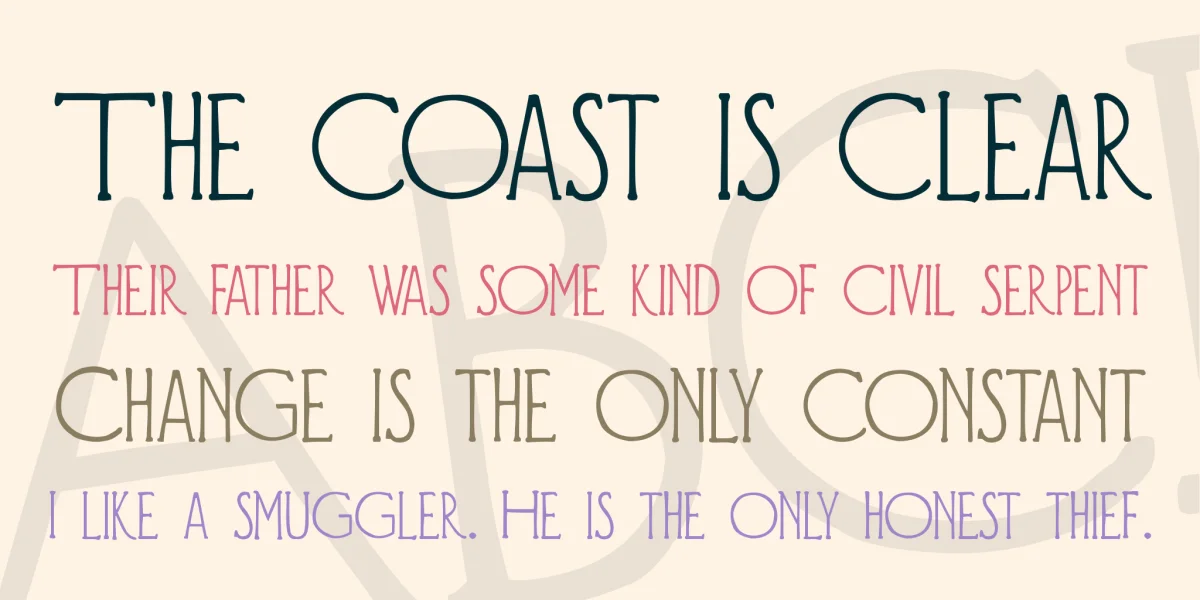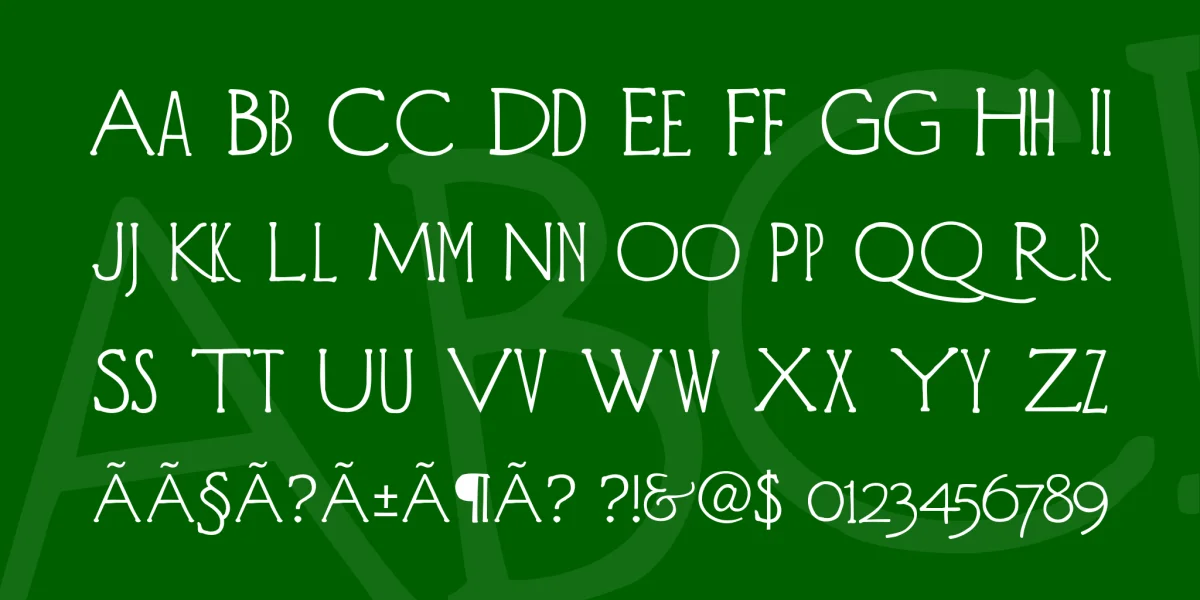
Marley found a book on top of the trash bin outside her apartment building in Atlanta. The book was called "House Planning by Wooster Bard Field, Architect, A.I.A., Professor of Engineering Drawing, The Ohio State University, McGraw-Book Company Incorporated, New York & London, 1940".
Aside from being the longest title I have ever seen, the book contained some gorgeous hand lettering by Mr. Field. Some art deco, some calligraphy, and even some turn-of-the-century style stuff (some even reminiscent of Colwell, the Elizabeth Colwell lettering font that is also available at the lab). Marley and I figure that at least three fonts could be made from this trashed piece of house planning literature.
The appeal of this font is in the irregularity of the stroke weights, which vary slightly from one character to the other. Although the basic effect of what the font can do starts to be visible at about 30 points, we recommend that you use it at 60 points and above to reach its overall visual potential.